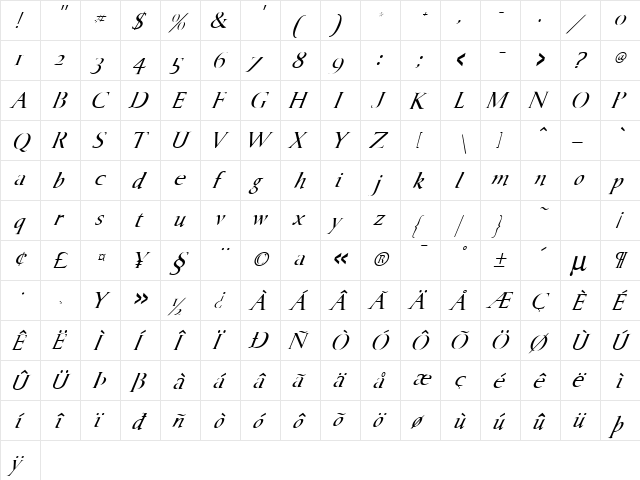
Rancho-Italic Normal
Design Context for Rancho-Italic Typeface
Rancho-Italic offers clean, dependable letterforms without strong stylistic allegiance, making it a practical choice for designers who need flexibility. The dynamic lean of this cut emphasises speed and emphasis in any layout.